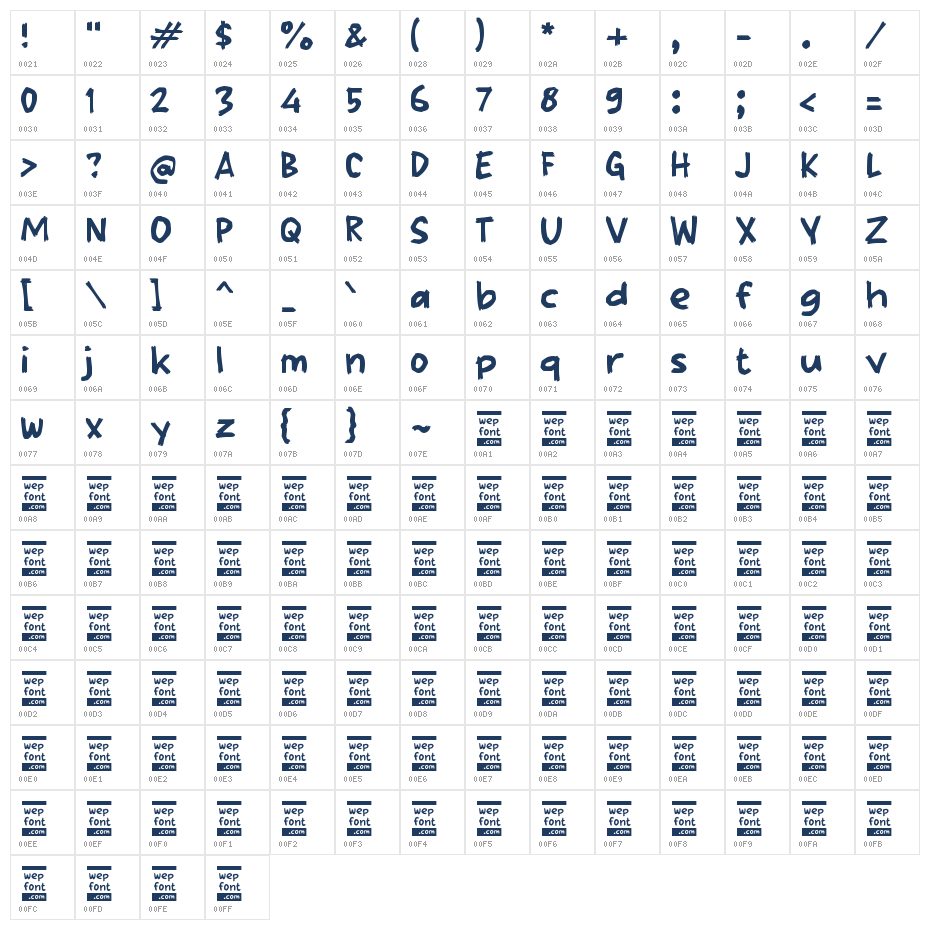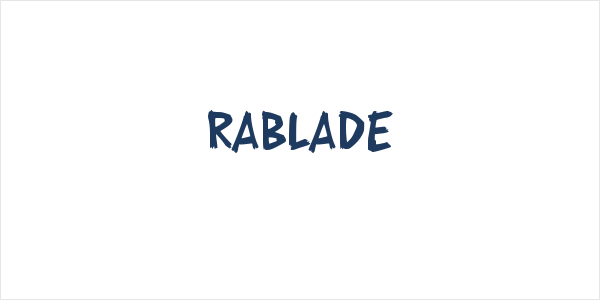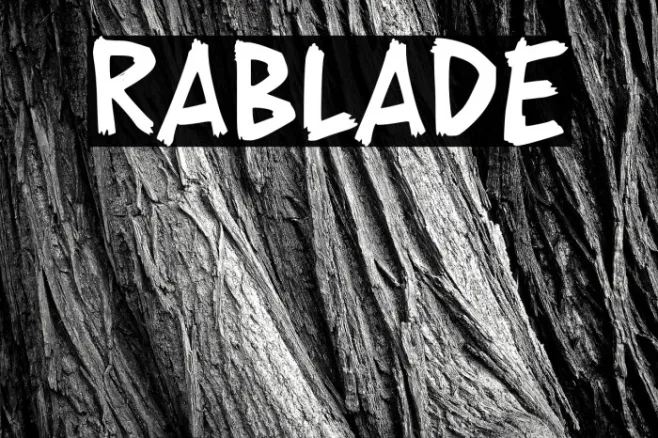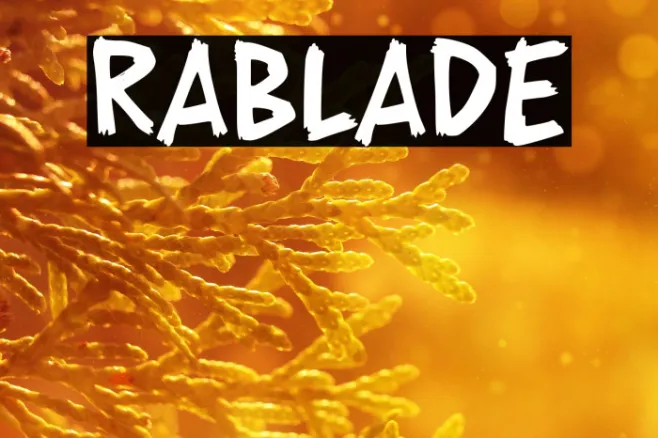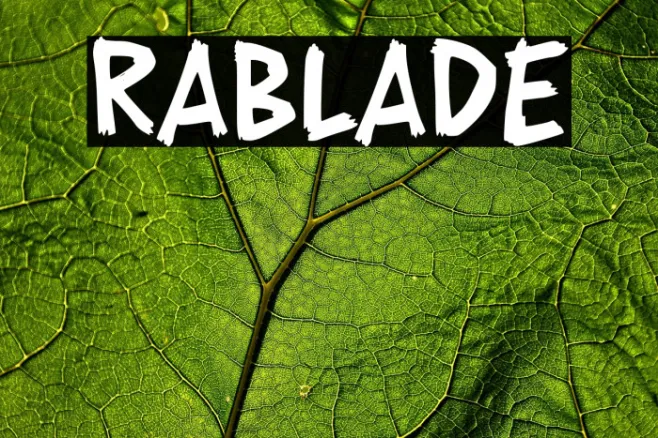
RABLADE Font
RABLADE Description
A bold, playful, handwritten style font with a casual and energetic appearance, featuring irregular strokes and a slightly rough texture.
| Use Case | Headlines, Posters, Children's materials, Creative branding |